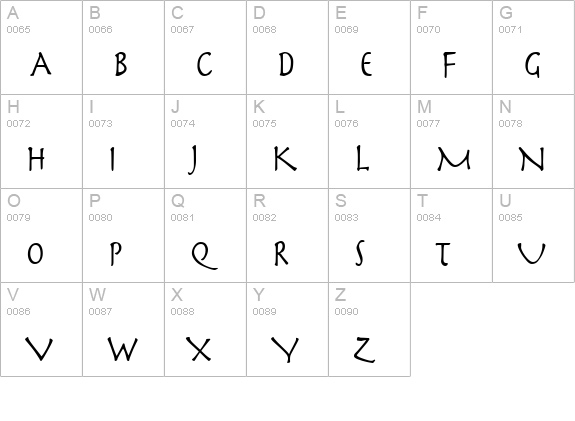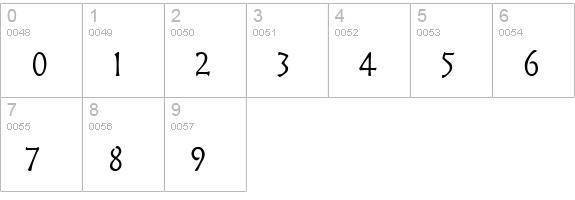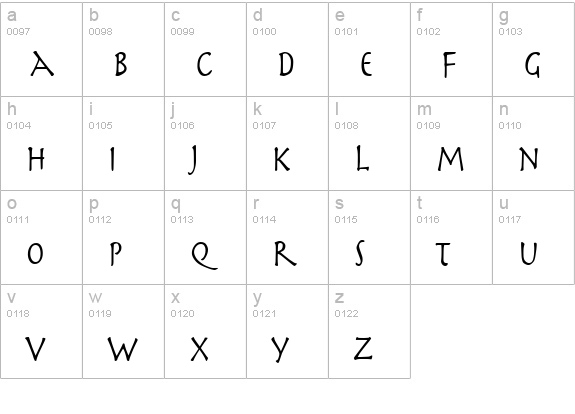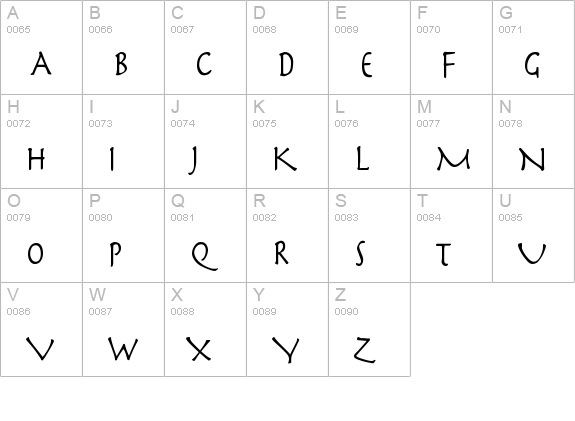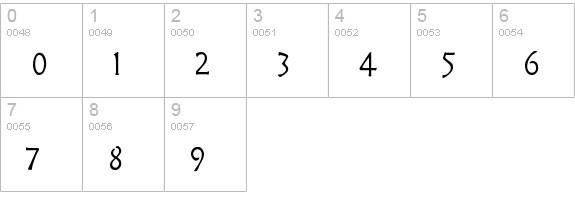
Mythology Condensed Normal is the standard, neutral, condensed-width variant in the Mythology typeface family \xE2\x80\x94 well suited to general body text, paragraphs, and standard typographic work.
Mythology Condensed Normal font is a stunning display typeface inspired by ancient mythological stories and legends. Its sleek and elegant design captures the essence of mystery and intrigue, making it perfect for adding a touch of magic to your projects. The condensed style of this font allows for more text to be displayed in a limited space, making it ideal for headlines, titles, and other attention-grabbing elements. Best of all, Mythology Condensed Normal font is completely free to download at FontsMarket.com. This means you can easily enhance your designs with this unique and captivating typeface without any cost. Whether you're working on a branding project, poster design, or any other creative endeavor, Mythology Condensed Normal font is sure to make a bold statement. Download it today and let your imagination soar with this enchanting font.